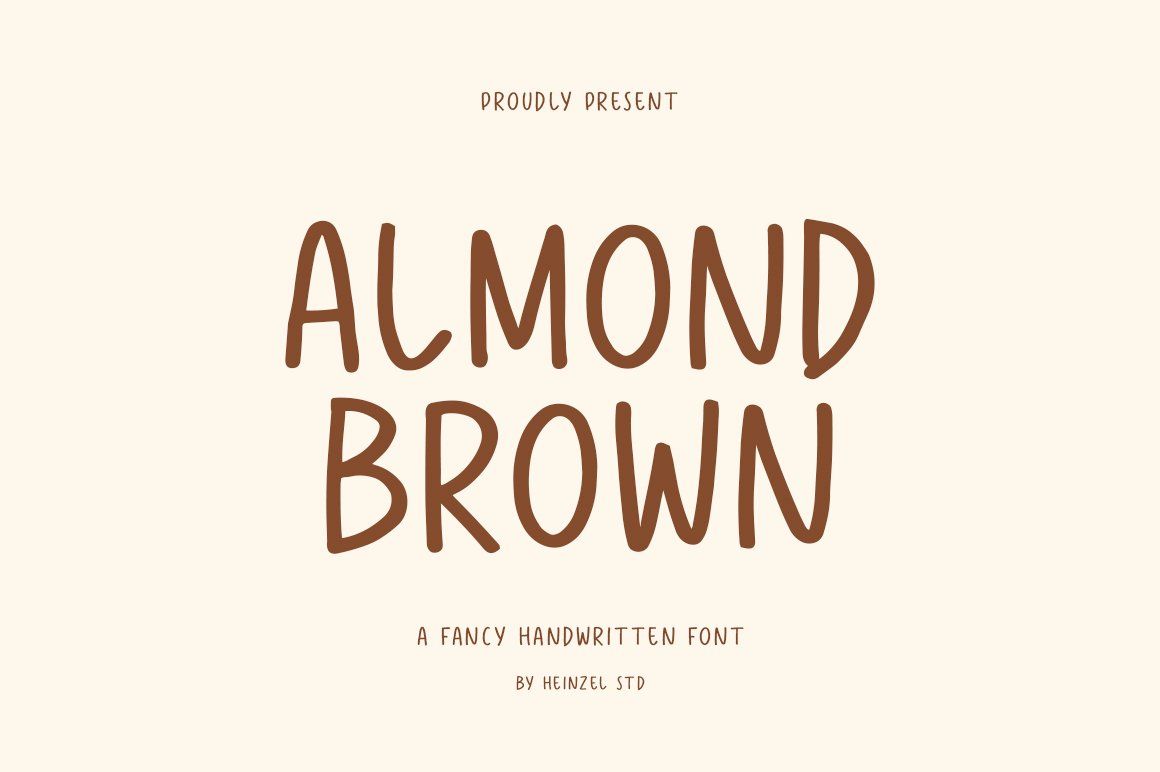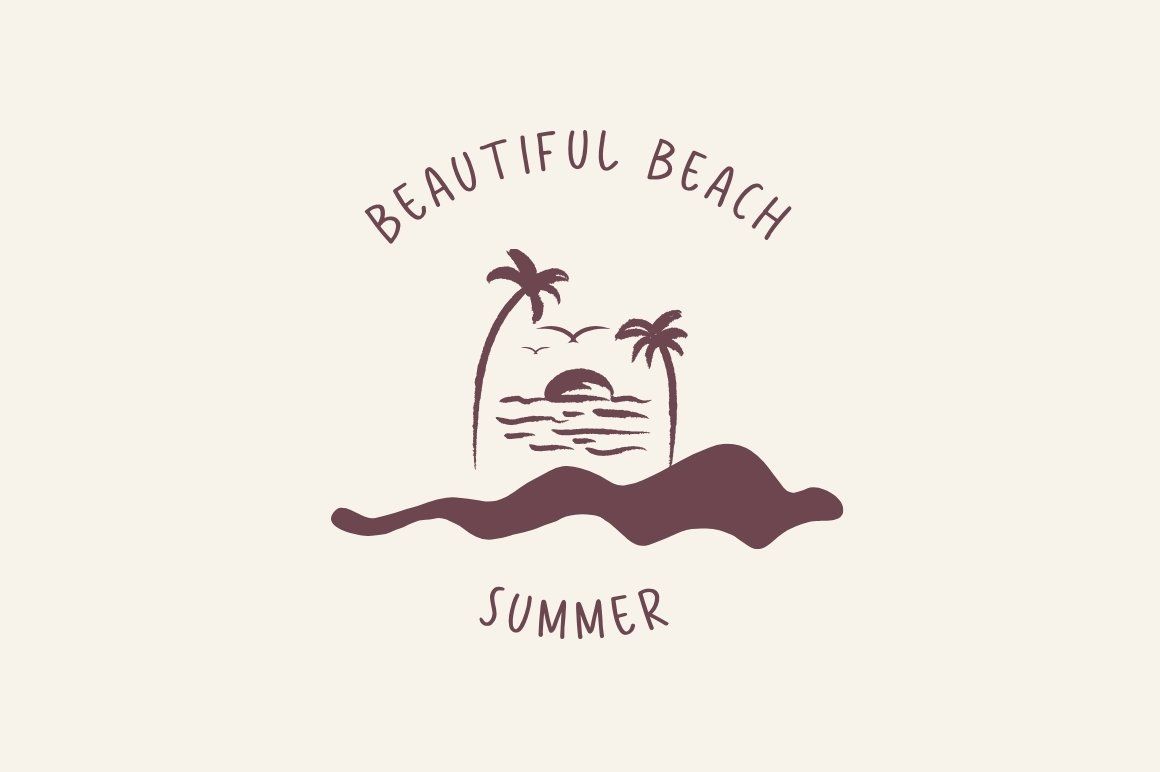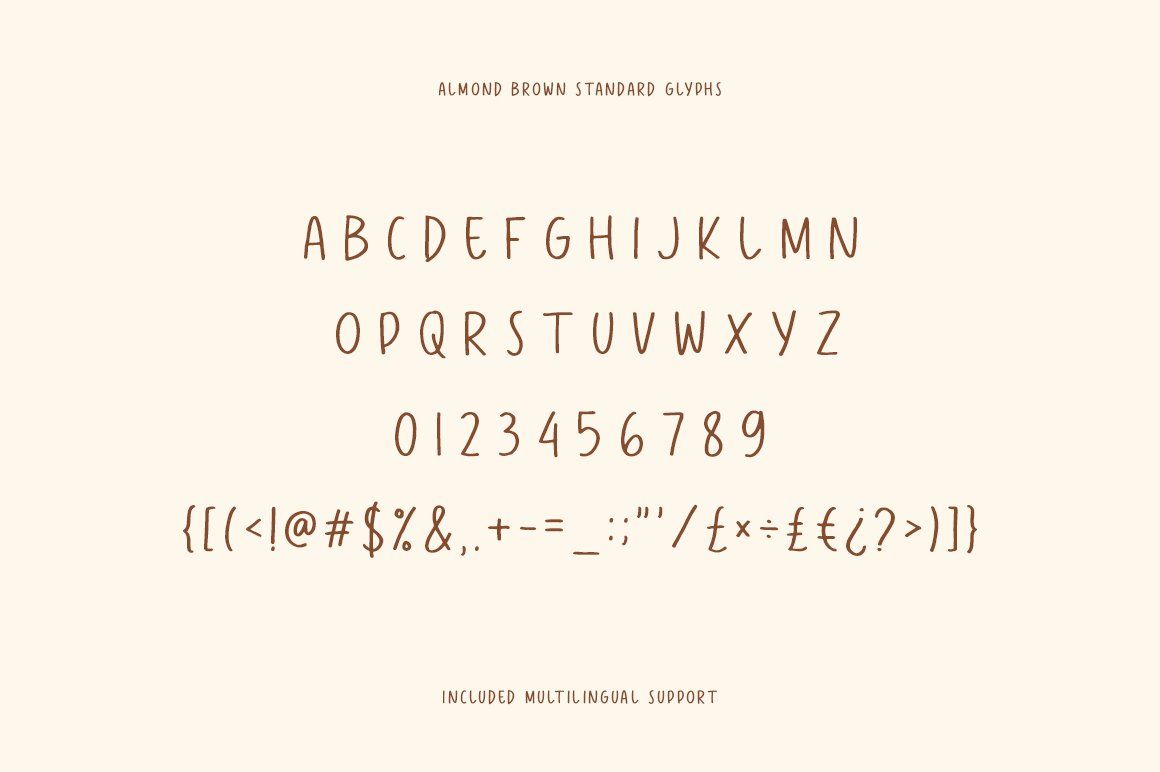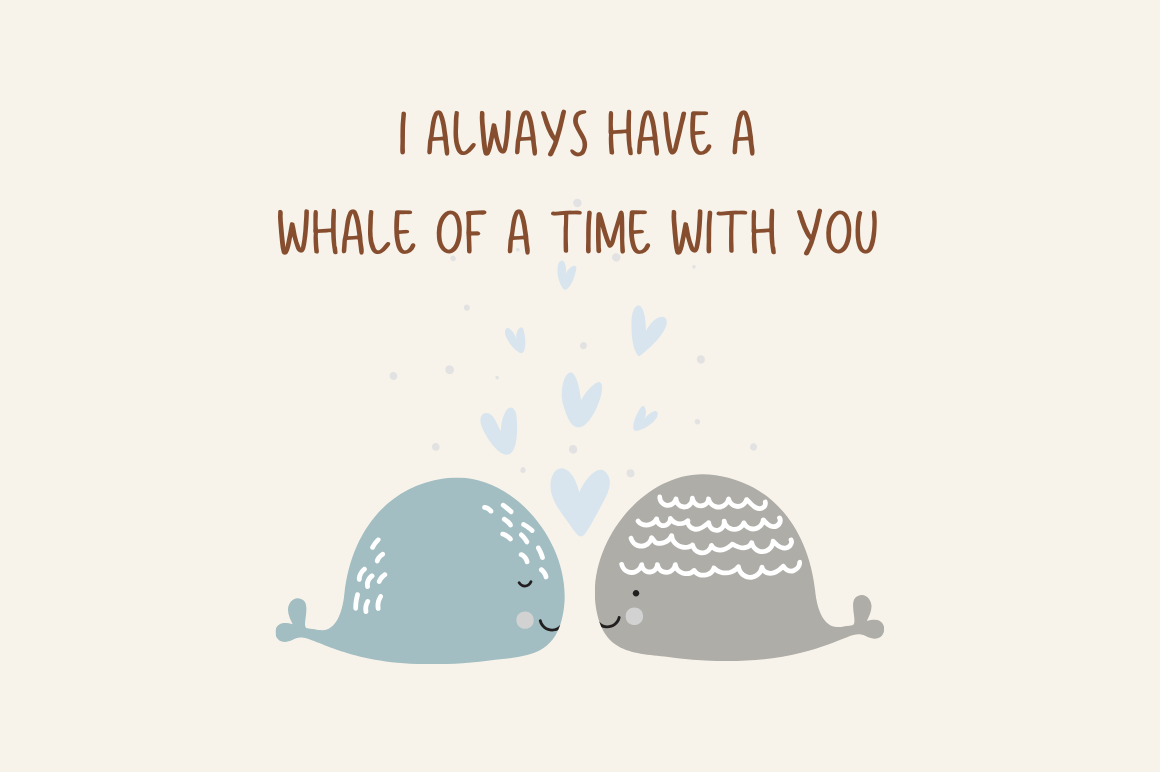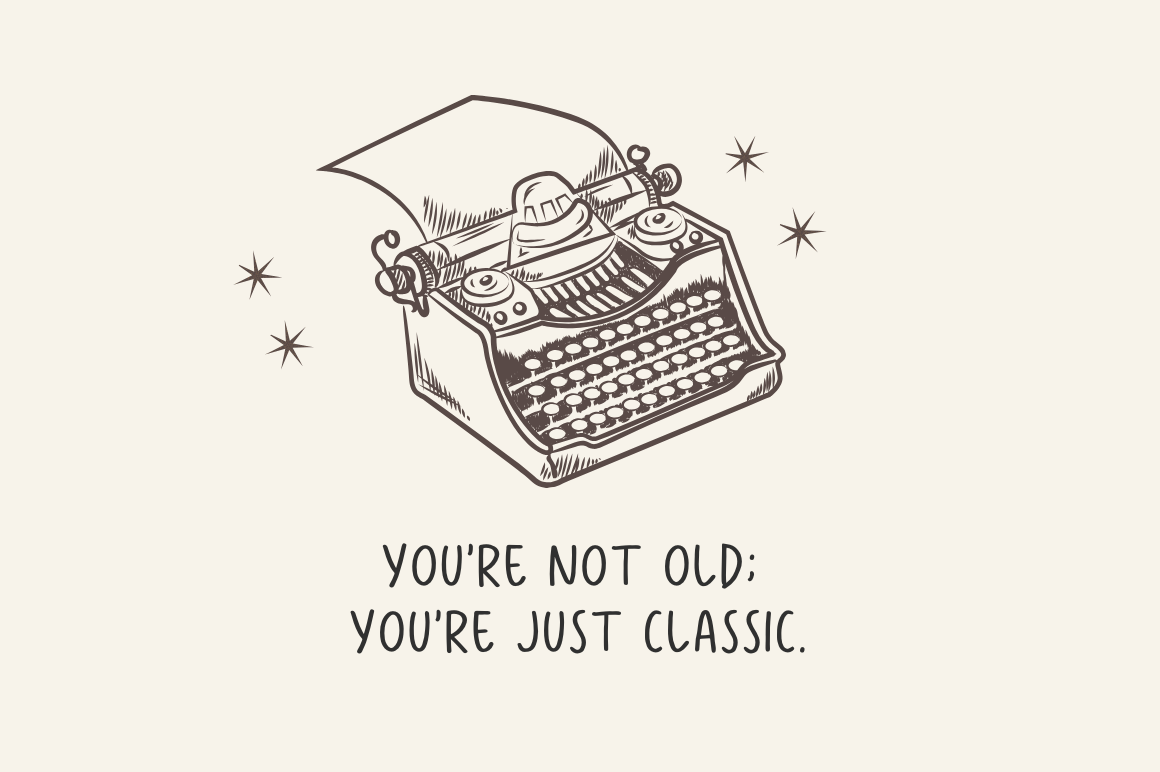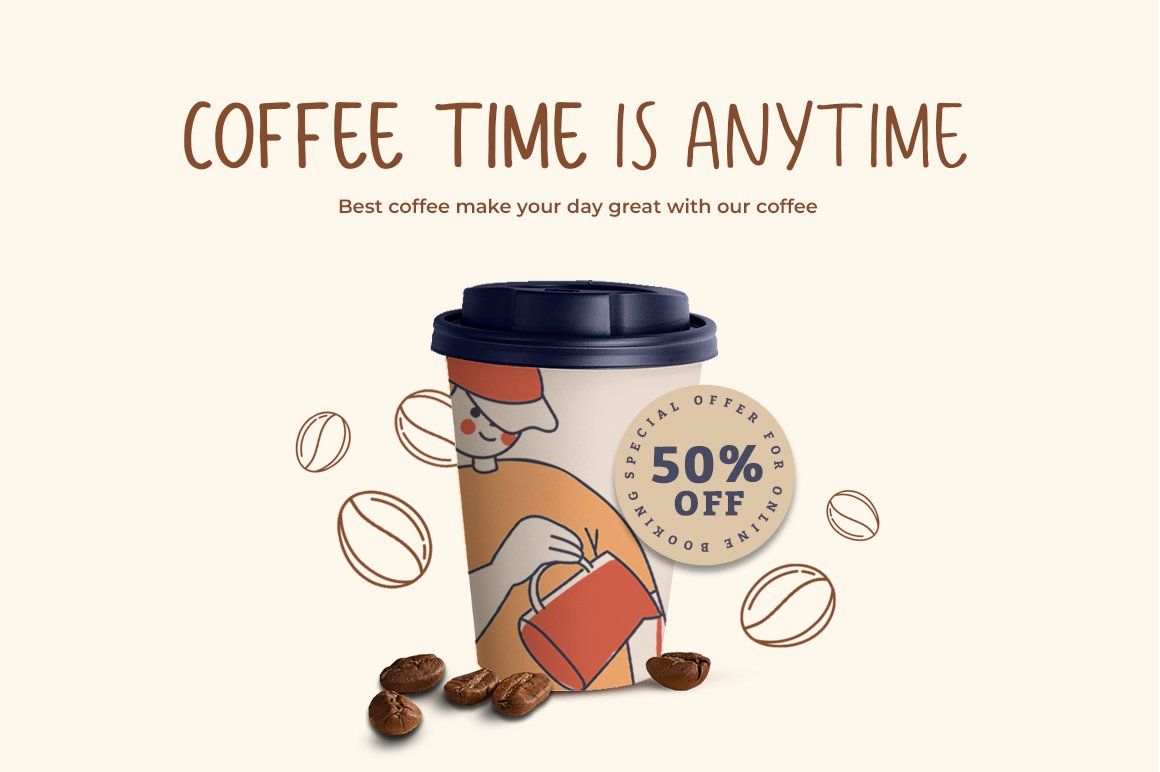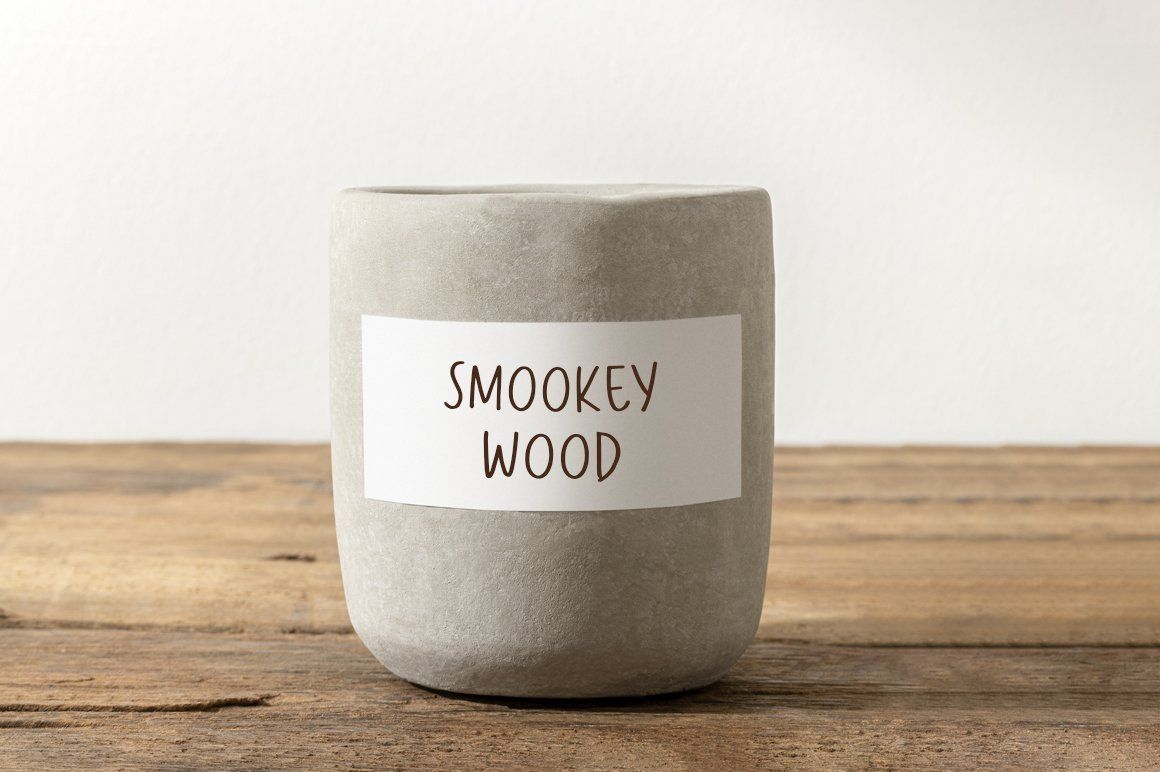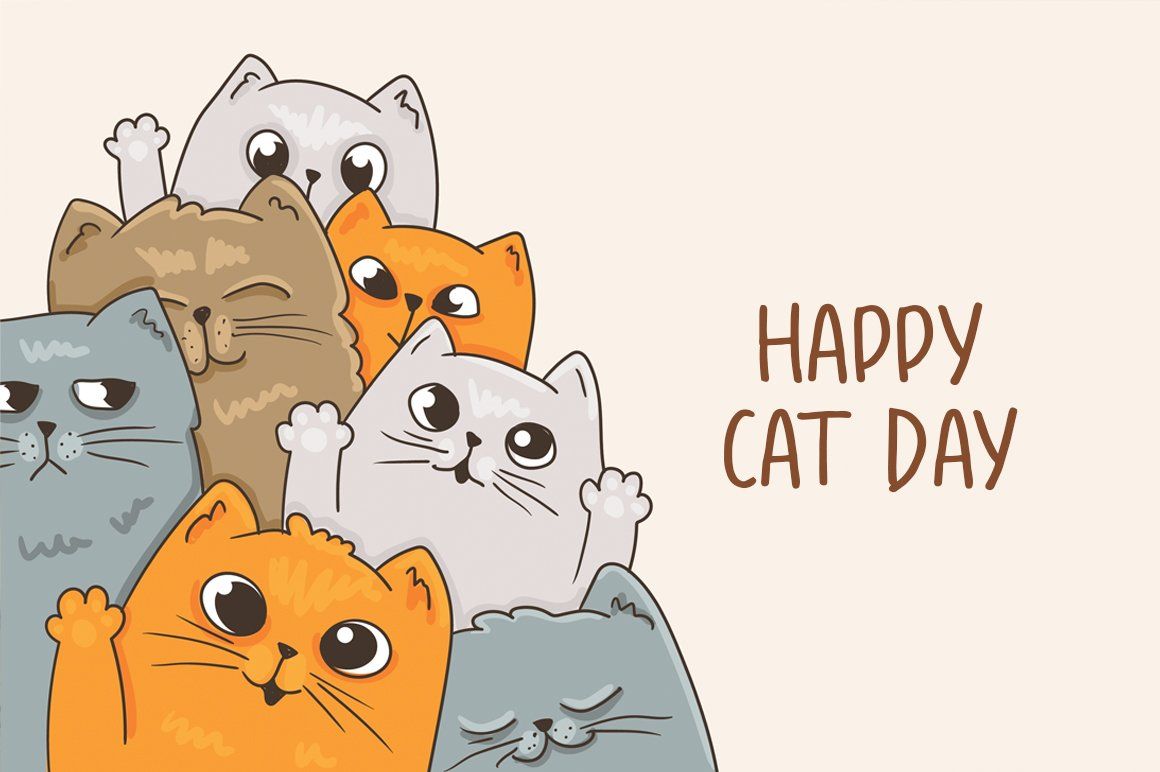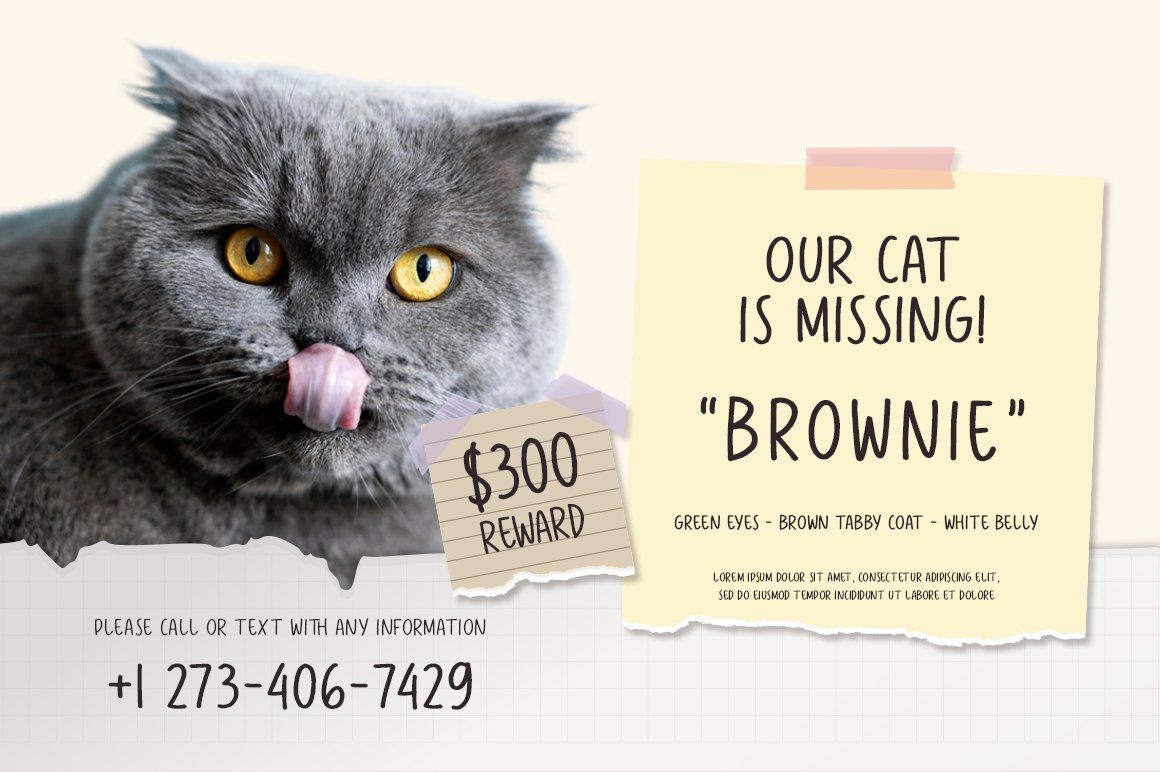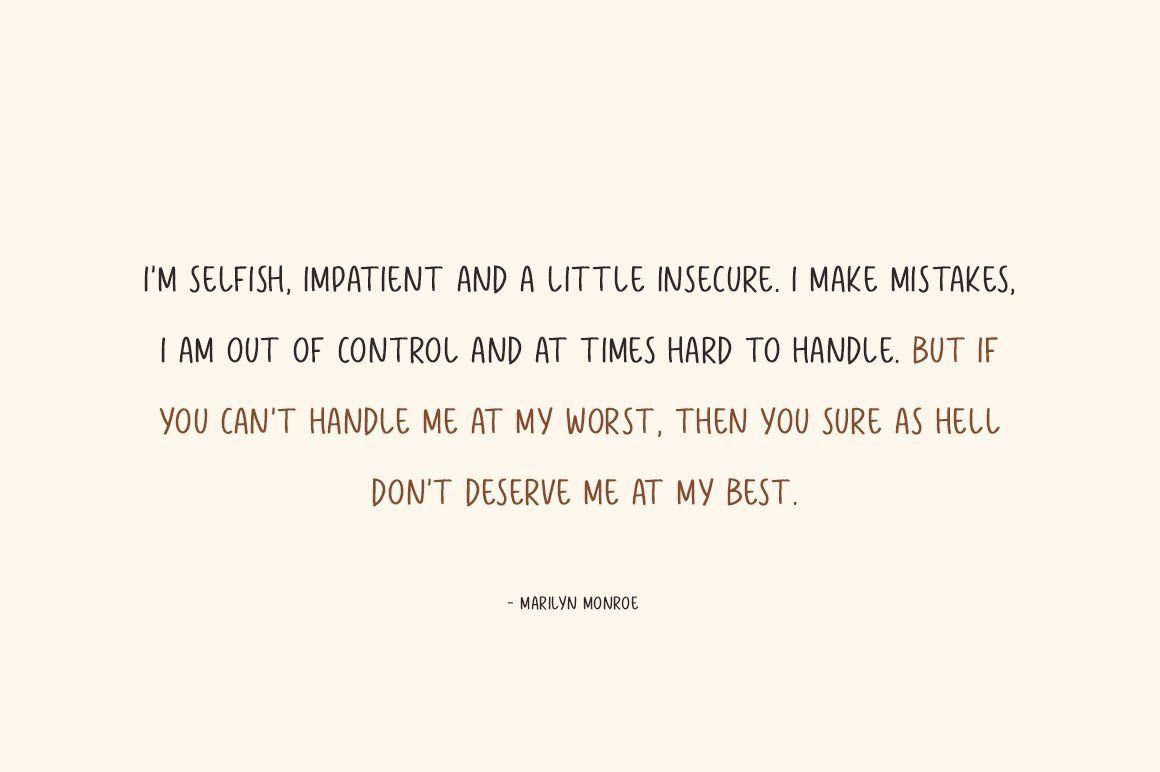
Almond Brown is a fancy handwritten font with a playful, organic personality and a charming hand-drawn feel. Its tall, expressive letterforms create a warm and creative visual style, making it an excellent choice for designs that need a personal and artistic touch.
With its casual handwritten character and distinctive shapes, Almond Brown works beautifully for branding, logos, packaging, posters, invitations, greeting cards, social media graphics, quotes, apparel, stationery, and creative advertising. It is especially suited to lifestyle brands, boutique businesses, food and beverage packaging, children's designs, and modern handmade projects.